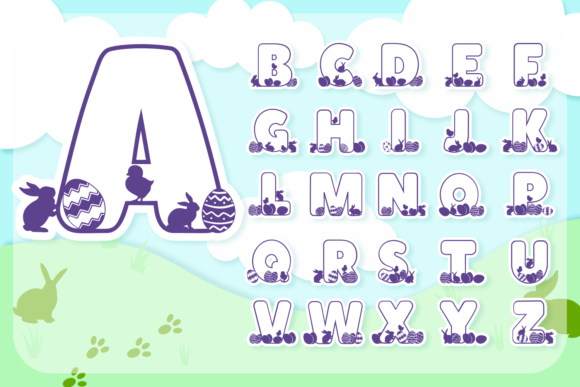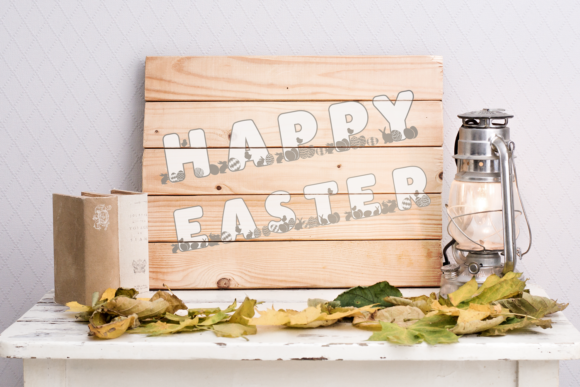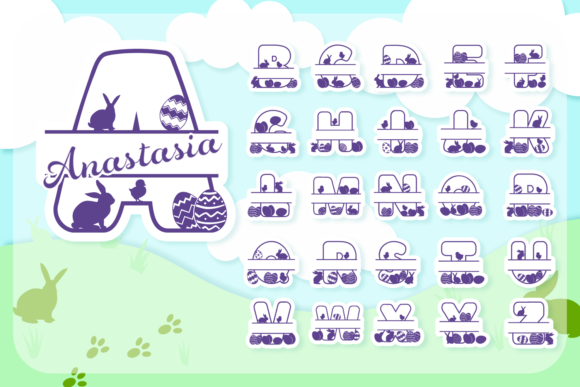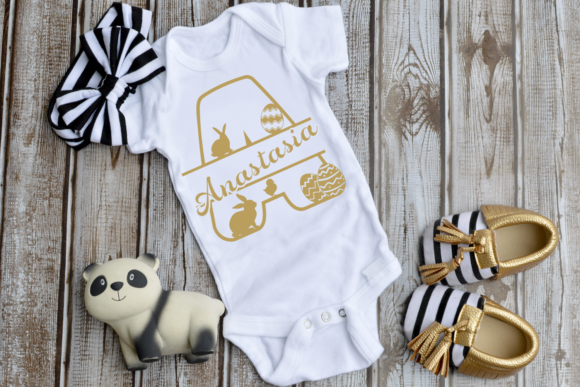
Easter Joy Font: A Delightful Easter-Themed Font for Designers and Crafters
Are you looking for a unique and festive font to add a touch of Easter joy to your designs and crafts? Look no further than the Easter Joy Font, a lovely Easter-themed font that is sure to delight designers and crafters alike. This charming font features lots of bunnies, eggs, and chicks, carefully drawn to create a beautiful Easter meadow effect.
What Makes Easter Joy Font So Special?
The Easter Joy Font is a one-of-a-kind font that is specifically designed to capture the spirit of Easter. The font features outline-only letters, which not only make it look less cramped but also create a sense of airiness and freedom. The base of each letter is carefully crafted to form a beautiful Easter meadow, complete with adorable bunnies, eggs, and chicks.
Whether you’re a designer looking for a unique font to use in your Easter-themed designs or a crafter seeking a special font to add to your handmade cards and decorations, the Easter Joy Font is the perfect choice. The font is versatile and can be used for a variety of projects, from Easter cards and invitations to DIY decorations and scrapbooking.
Key Features of Easter Joy Font
- Easter-themed design: The font features a delightful Easter-themed design, complete with bunnies, eggs, and chicks.
- Outline-only letters: The letters are outline-only, creating a sense of airiness and freedom.
- Easter meadow effect: The base of each letter is carefully crafted to form a beautiful Easter meadow.
- Versatile: The font can be used for a variety of projects, from Easter cards and invitations to DIY decorations and scrapbooking.
- Easter cards and invitations
- DIY decorations and signs
- Scrapbooking and journaling
- Easter-themed party decorations and favors
To get the most out of the Easter Joy Font, here are a few tips and inspiration ideas:
- Pair with pastel colors: The Easter Joy Font looks beautiful paired with pastel colors, such as pink, blue, and yellow.
- Add Easter-themed graphics: Consider adding Easter-themed graphics, such as eggs, bunnies, and chicks, to your designs.
- Experiment with different sizes: The Easter Joy Font looks great in a variety of sizes, from large and bold to small and delicate.
The Easter Joy Font is a delightful Easter-themed font that is sure to bring joy and festivity to your designs and crafts. With its unique outline-only letters and beautiful Easter meadow effect, this font is perfect for designers and crafters looking for a special touch. Whether you’re creating Easter cards, DIY decorations, or scrapbooking pages, the Easter Joy Font is a great choice. So why not give it a try and add a touch of Easter joy to your projects?